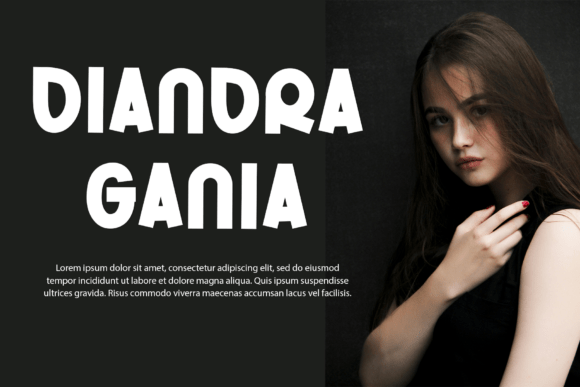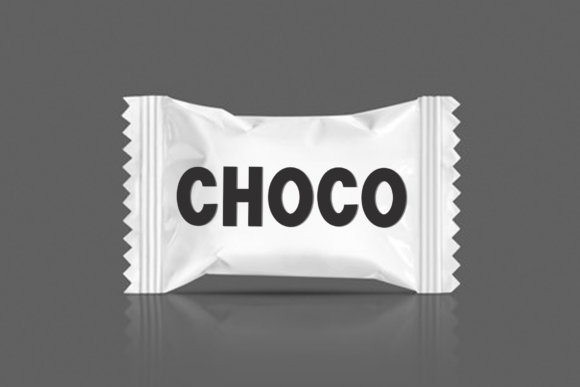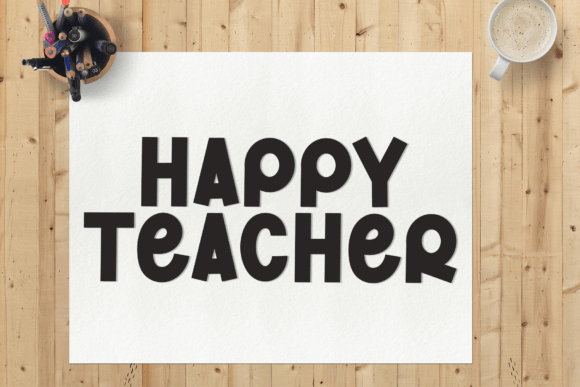
The Designer’s Delight: Getting to Know Boldies Font
I’ll never forget the time I was working on a project for a client who wanted a font that was both elegant and playful. I spent hours scouring the internet for the perfect one, but nothing seemed quite right. That was until I stumbled upon Boldies Font. Its unique blend of softness and character caught my eye, and I knew I had found the one. In this article, I’ll share my experience with Boldies Font, its features, and how to make the most of it in your designs.
My Honest Review of Boldies Font
As a designer, I’m always on the lookout for fonts that can elevate my work. Here’s what I love about Boldies Font:
• ✨ Unique Character: Boldies Font has a distinctive touch that sets it apart from other fonts.
• ✅ Versatility: It’s perfect for a wide range of design projects, from crafts to creative works.
• 🎨 Aesthetic Appeal: Its soft, natural style makes it appealing to many audiences across different artistic and creative fields.
While Boldies Font is a great addition to any design project, there are a few quirks to be aware of:
• 🤔 Glyph Limitations: Some users may find that the font lacks certain glyphs or special characters.
• ⚠️ Kerning Issues: As with any font, kerning issues may arise, especially when using Boldies Font at smaller sizes.
The Story Behind Boldies Font
Boldies Font was created with the intention of providing a unique and versatile font for designers and creatives. Its designer aimed to craft a font that was both elegant and playful, with a soft touch that would make it stand out in any design project. The font’s distinctive strokes and natural style make it perfect for a wide range of applications, from crafts to creative works.
What is Boldies Font? Boldies Font is a beautiful and eye-catching font designed with a soft, unique touch.